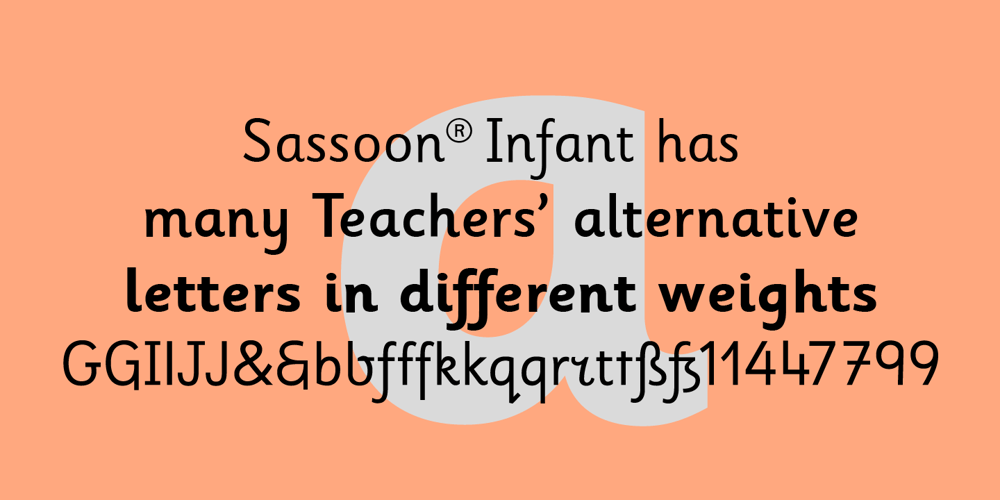
Sassoon Infant Font Family was designed by Rosemary Sassoon and published by Sassoon-Williams. Sassoon Infant contains 6 styles and family package options. An upright typeface family developed to meet the demand for letters to produce pupil material for handwriting as well as for reading. Upright letters with extended ascenders and descenders are ideal on screen. They facilitate word recognition. The exit strokes link words together visually, and in handwriting they lead to spontaneous joins along the baseline leading logically to a joined-up hand. Teachers can print desk strips, charts of letter families and alphabet friezes, as well as consistent material across the curriculum. Together these typefaces provide a valuable resource for special needs teachers. When starting point and stroke direction has been learned, the arrow font (Tracker B) can be dropped and the simpler Tracker font used. Tracker B font, with its direction arrows helps pupils to start in the correct place. Motor movements can be refined by keeping inside the line. When starting and direction is no problem, the arrow can be dropped and the plain Tracker font used. When starting point and stroke direction have been learned, the arrow font (Dotted B) can be dropped and the simpler Dotted font used. Free to download resources How to access Stylistic Sets of alternative letters in these fontsPurchasers of this font package may use their Order Number to receive a free Copybook PDF by Rosemary Sassoon recommended for effective teaching